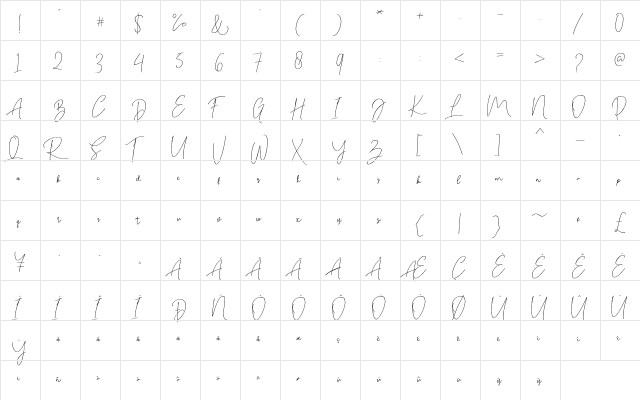
Bitlamero Script Regular
Design Context for Bitlamero Script Typeface
Bitlamero Script brings a calligraphic fluidity to the page — its connecting strokes and expressive curves give it an unmistakably human quality.
Font Pairing: Combine Bitlamero Script with a simple geometric sans for maximum contrast — the tension between flowing curves and clean structure is a classic typographic pairing.
Pro Tip: Pair Bitlamero Script with a clean sans-serif for supporting text. The contrast between fluid script and geometric structure creates an elegant typographic hierarchy.